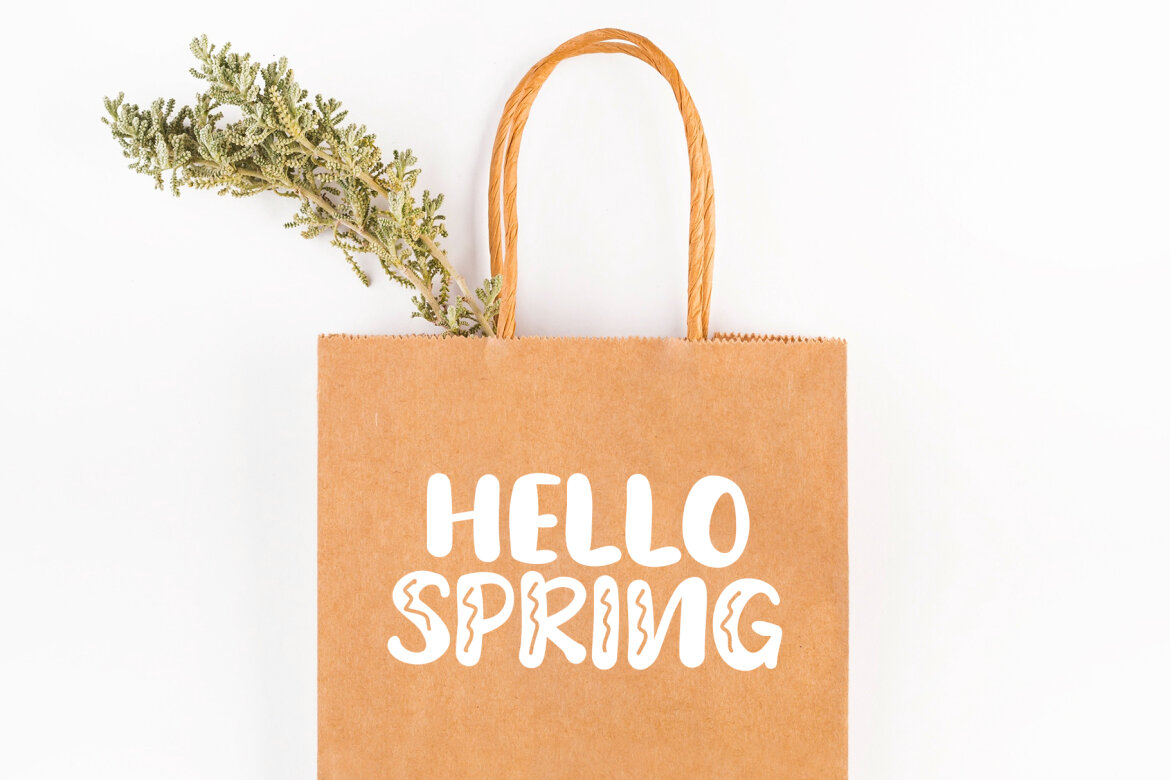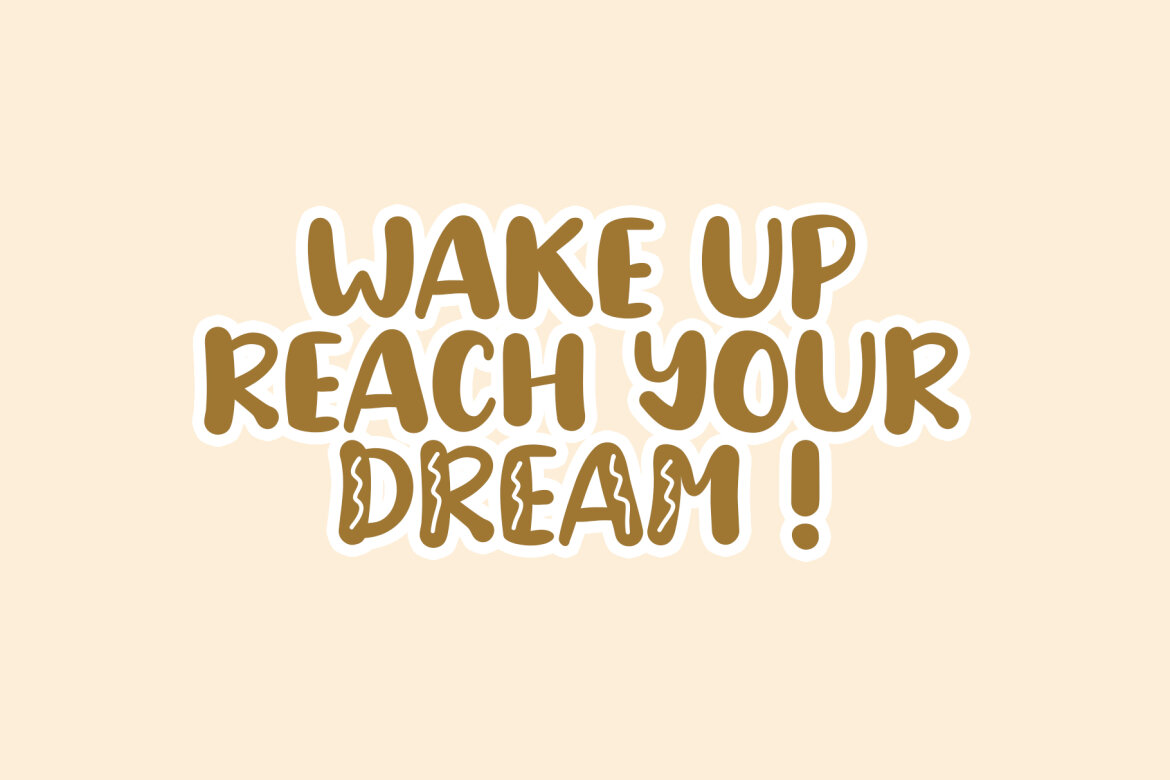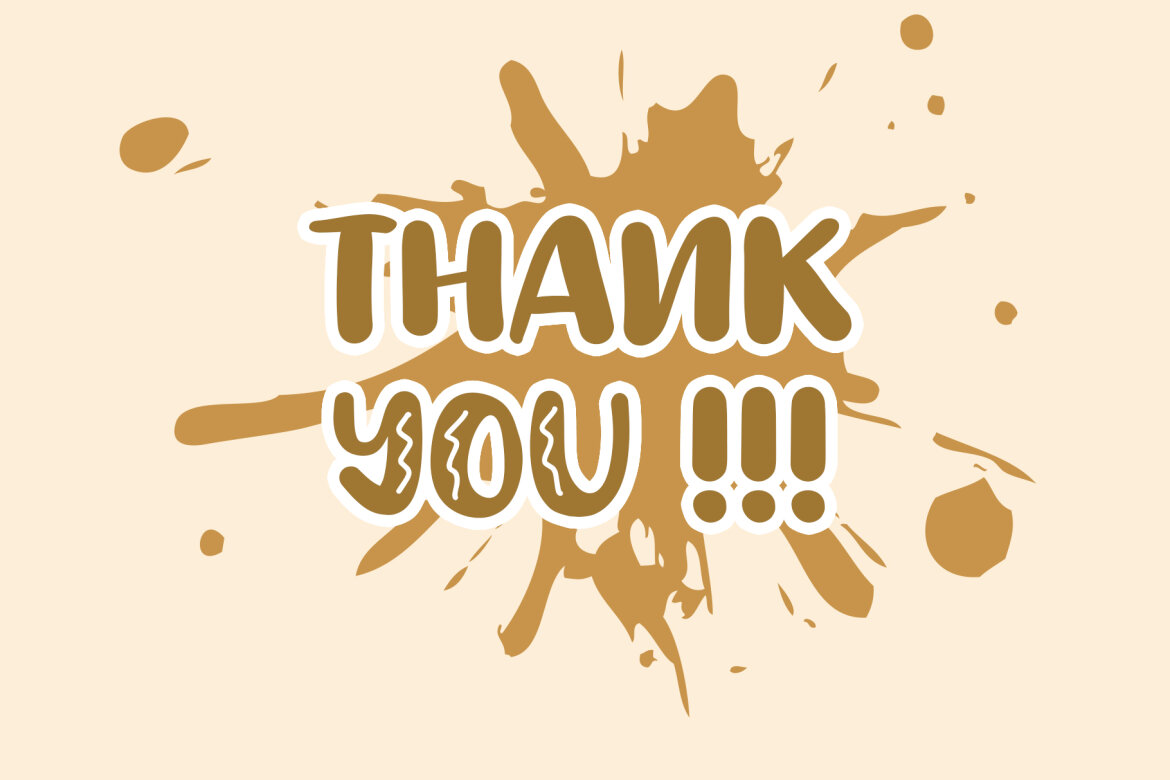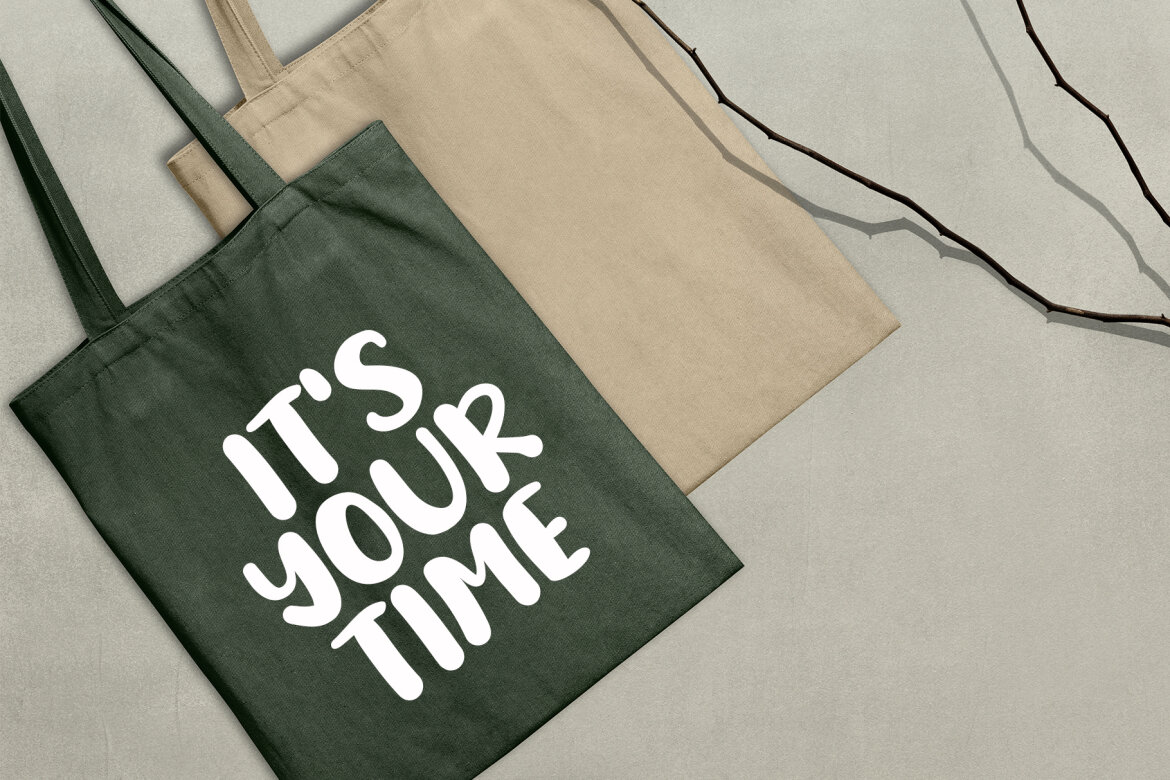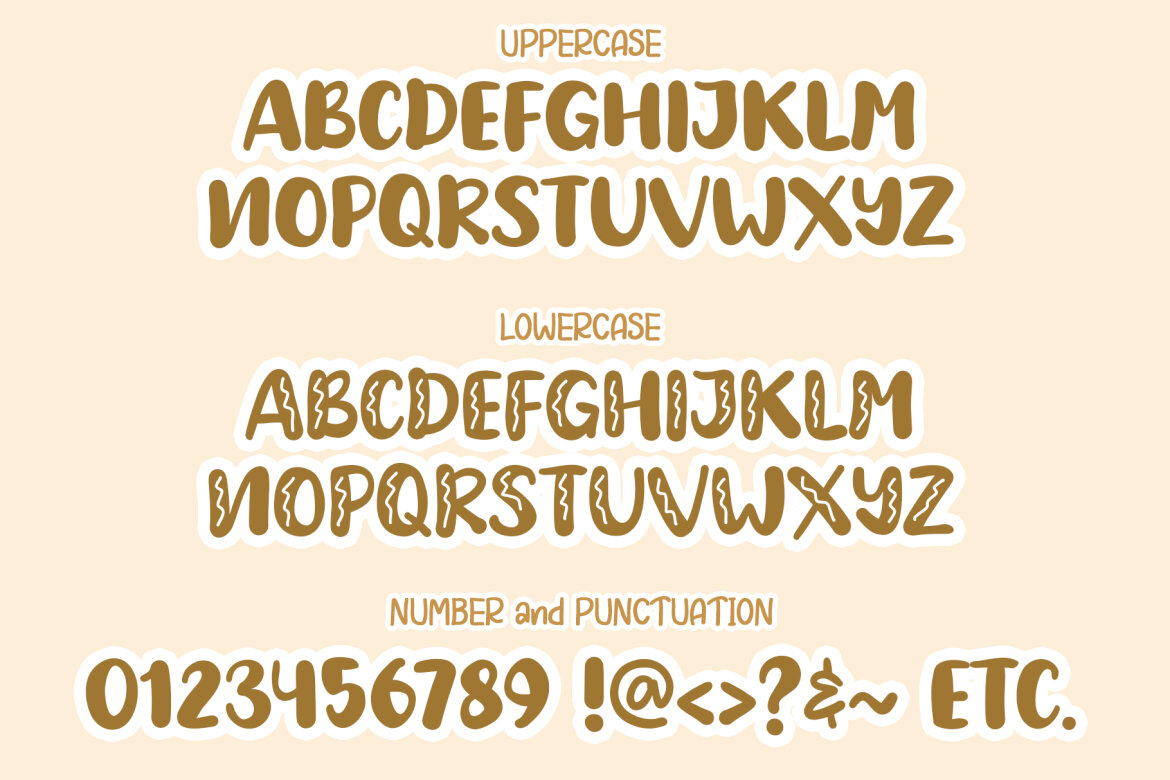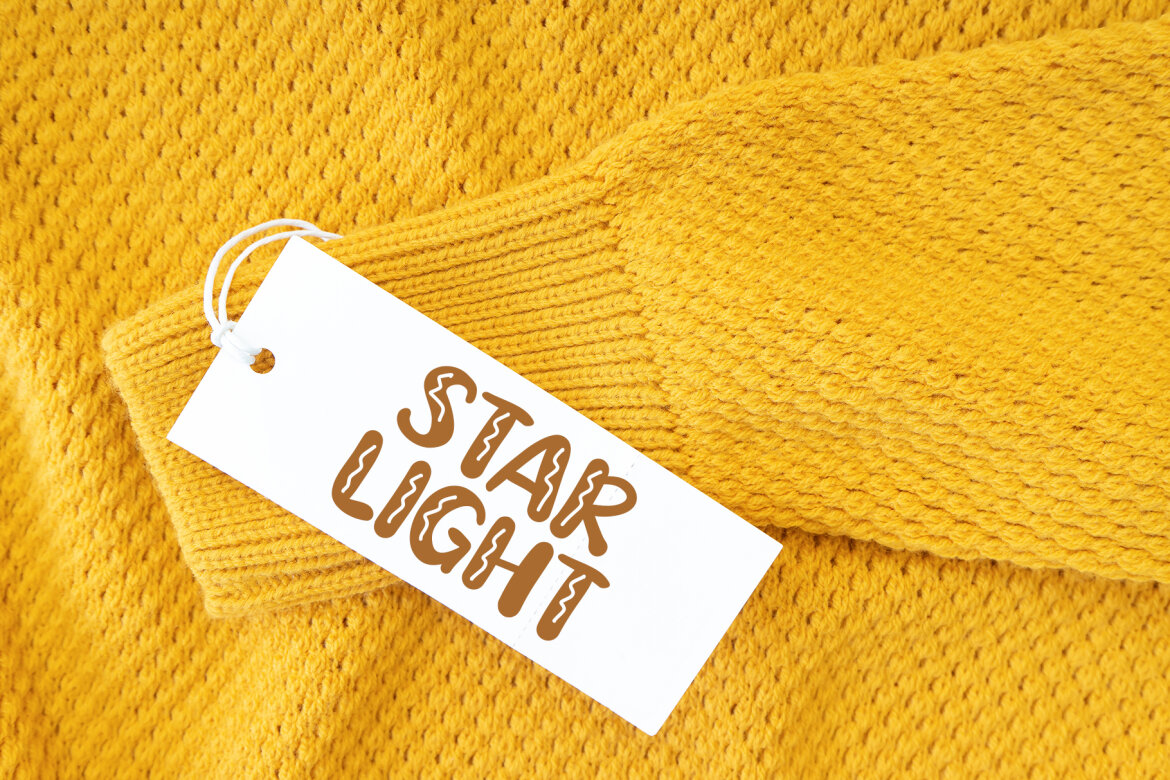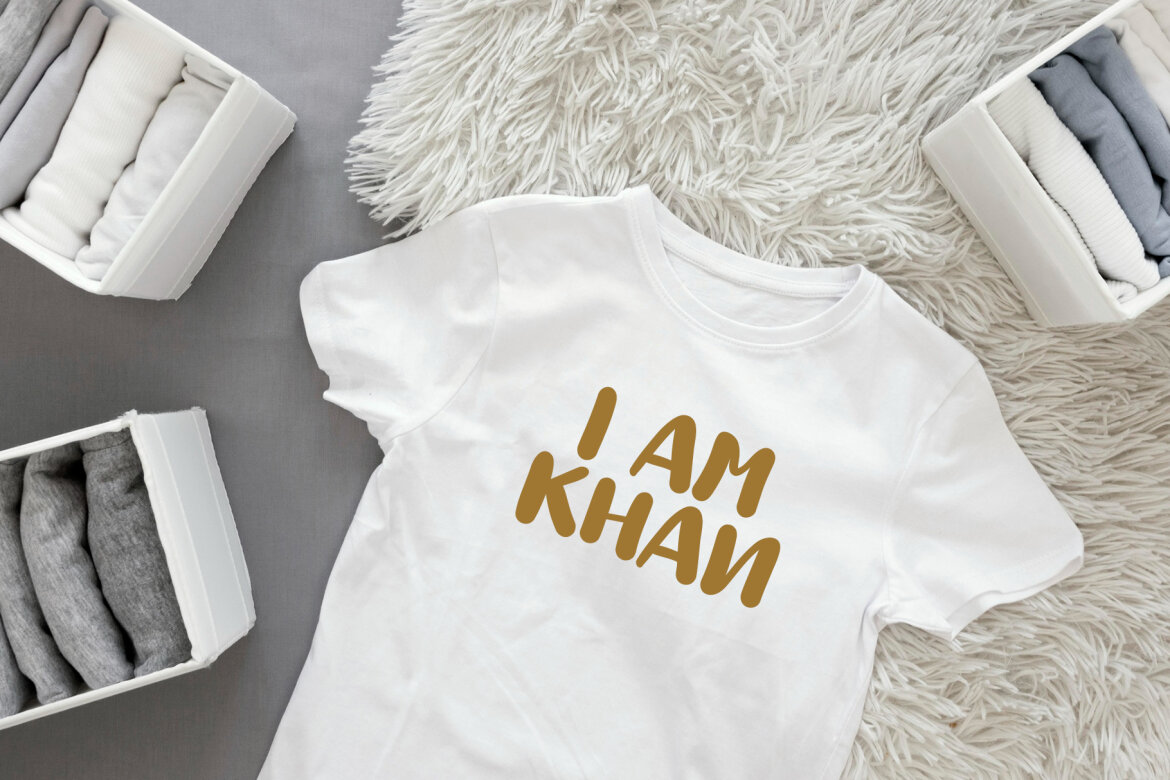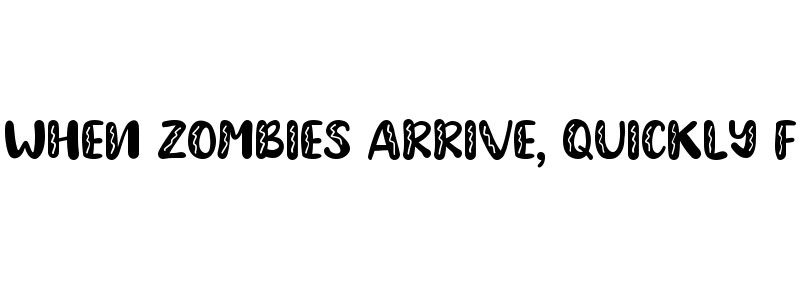
Choco Drink FREE Font
Chocho Drink preview
Chocho Drink
Chocho Drink is a cute and fun display font. This original look will appeal to a wide range of crafty ideas, from letterheads and titles to stationery.